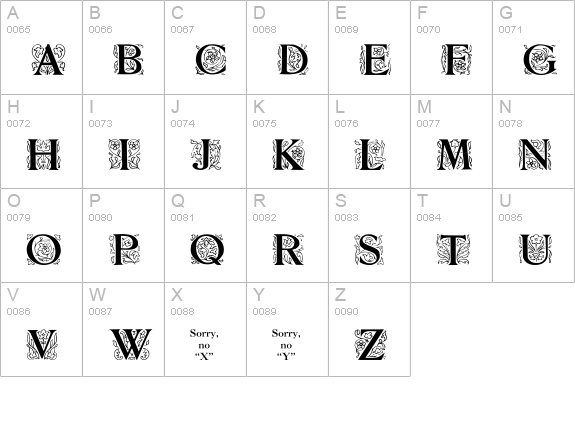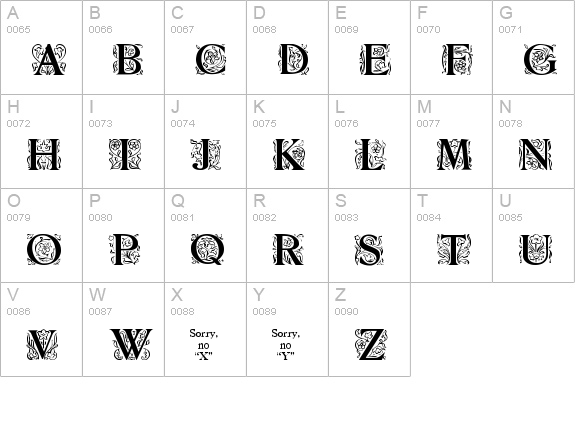
ZallmanCaps Font Details
ZallmanCaps font is a stunning and elegant typeface designed with intricate detailing and a touch of sophistication. Its timeless appeal and classic charm make it a perfect choice for various design projects, from invitations to branding materials. The graceful curves and distinct serifs of ZallmanCaps add a touch of luxury and refinement to any text. What makes ZallmanCaps even more appealing is that it is available for free download at FontsMarket.com. This means that you can easily bring this exquisite font into your design arsenal without any cost, making it a valuable asset for both personal and commercial projects. Embrace the beauty of ZallmanCaps and elevate your designs with its unique flair and elegance.